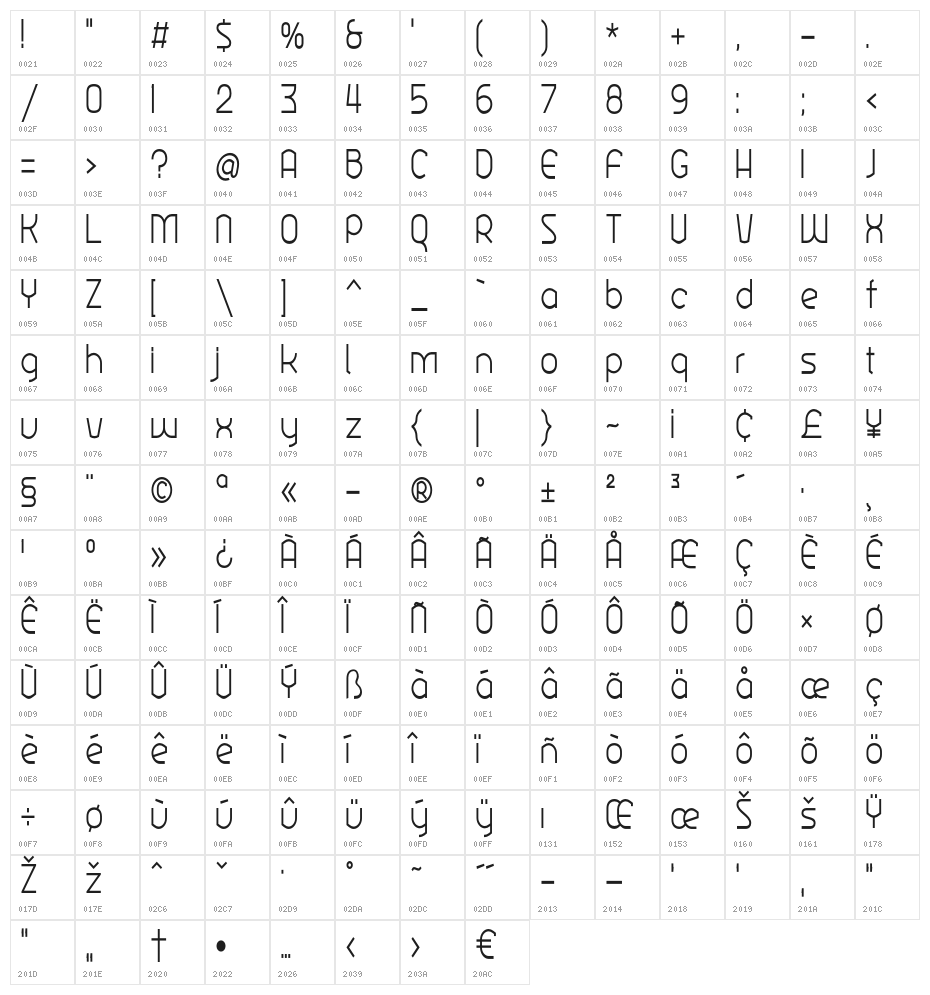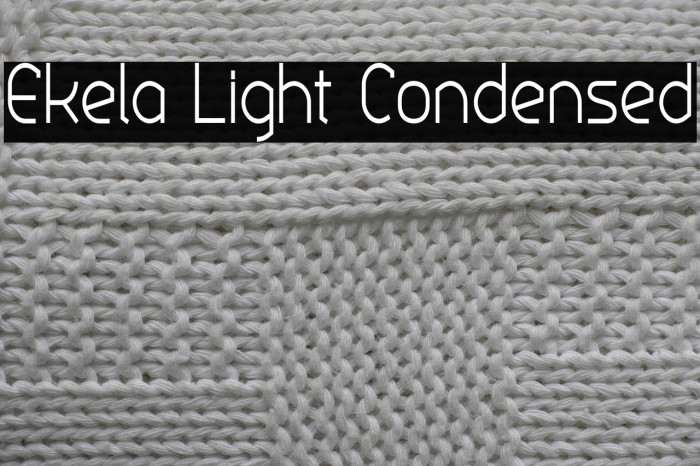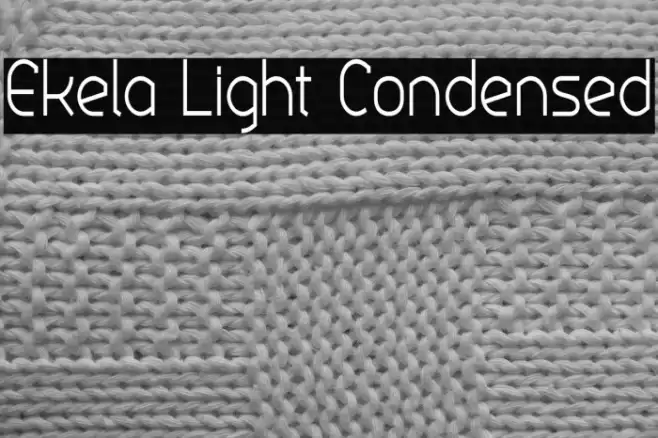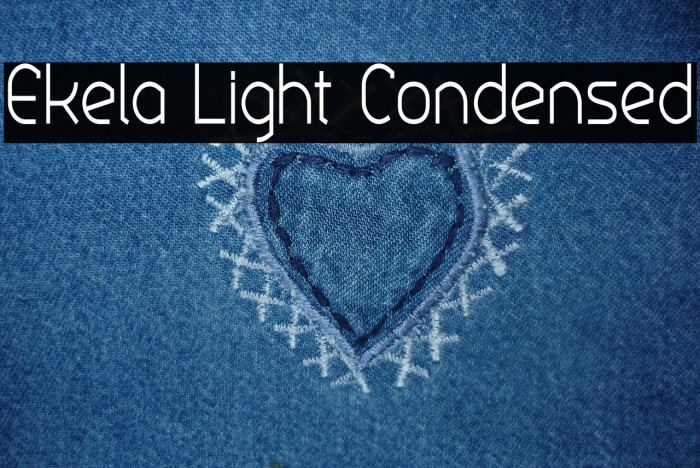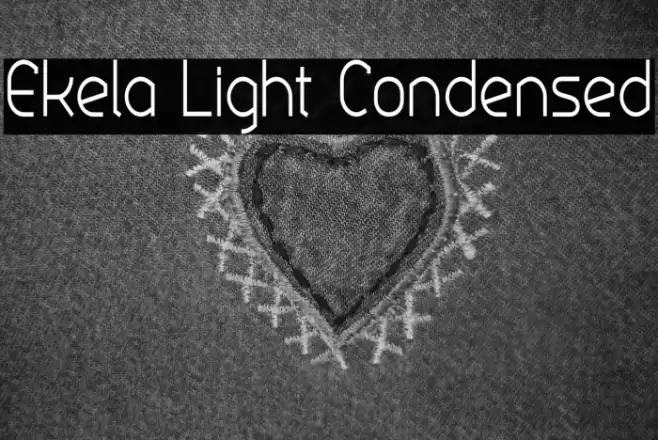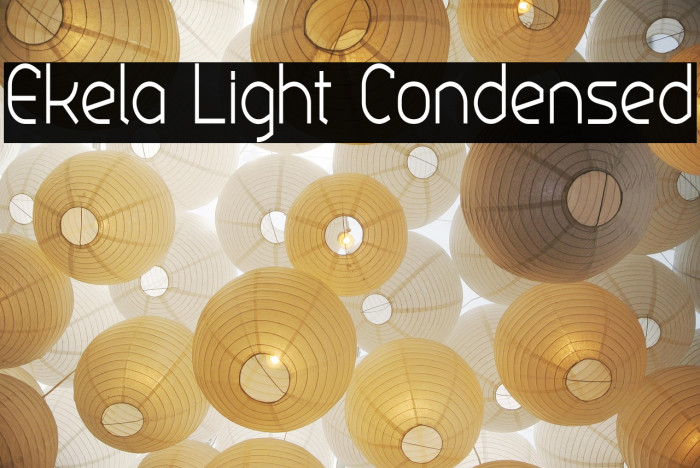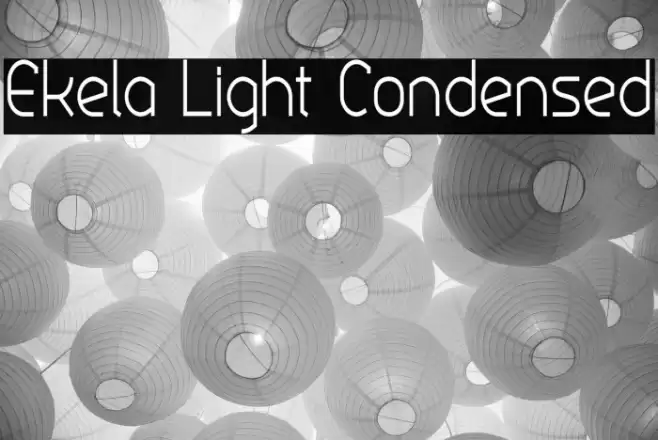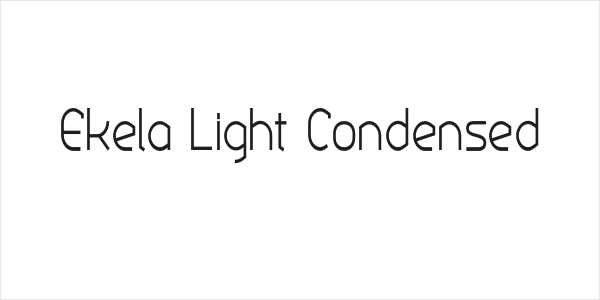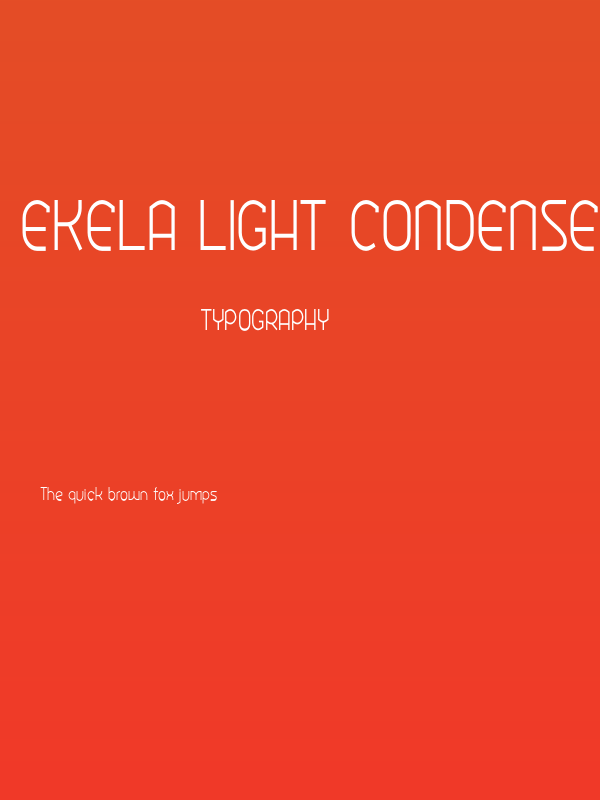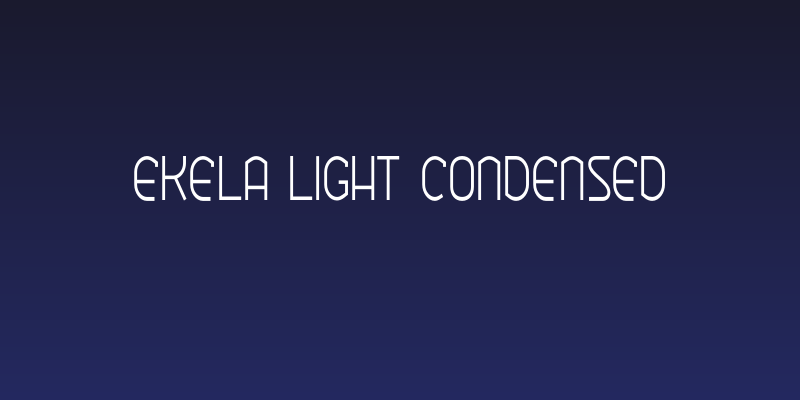
Ekela Light Condensed Font
Ekela Light Condensed Description
This font features a modern and sleek design with a geometric structure. The characters are condensed, giving it a narrow appearance, which is ideal for space-saving applications. The strokes are consistent in weight, providing a uniform look across all characters. The uppercase letters have a distinct angularity, while the lowercase letters maintain a smooth, rounded form. The numerals are clear and legible, making them suitable for various design contexts. Special characters are well-integrated, maintaining the overall aesthetic of the font.
Use CaseHeadlines, Logos, Digital interfaces
Proposed ProjectsIdeal for modern branding, editorial design, and digital interfaces where space is limited.